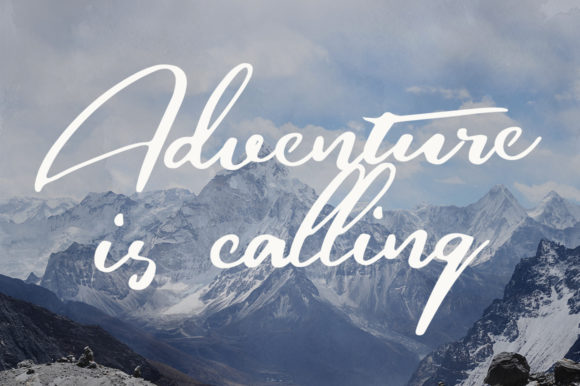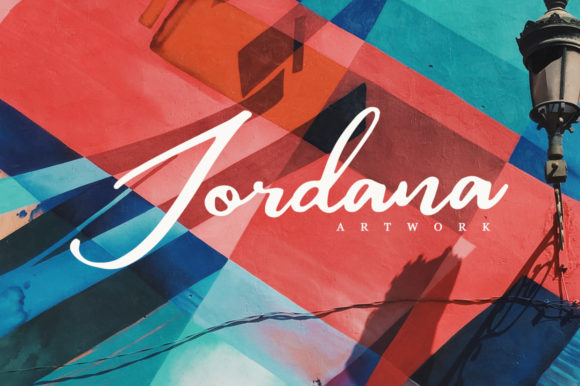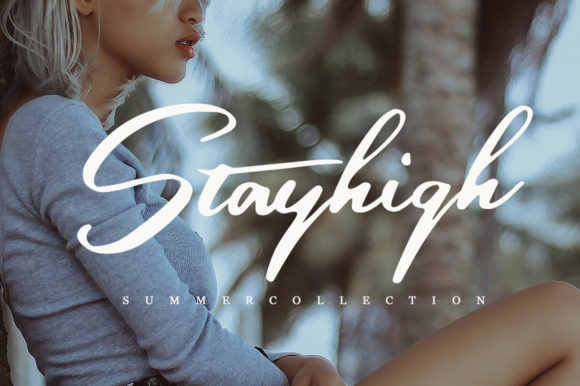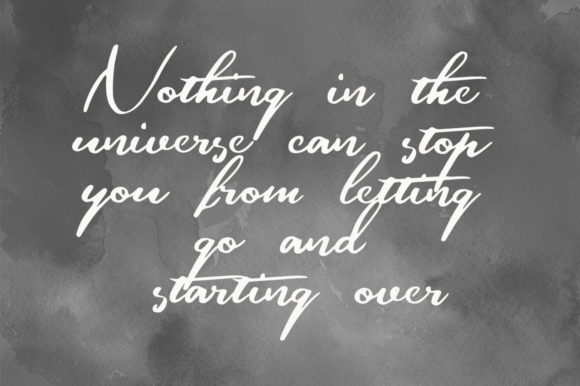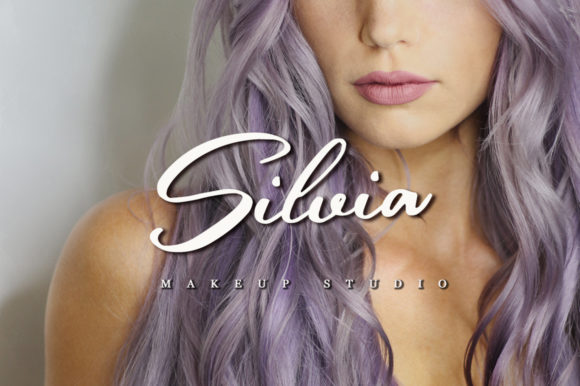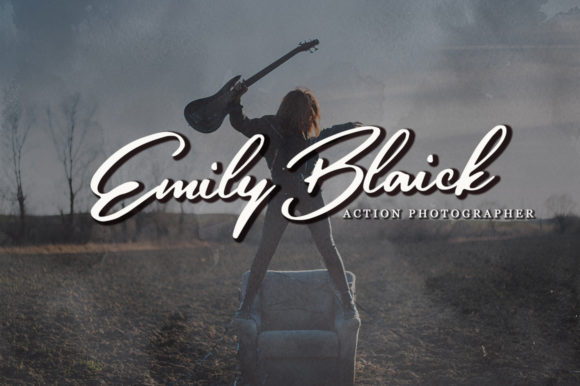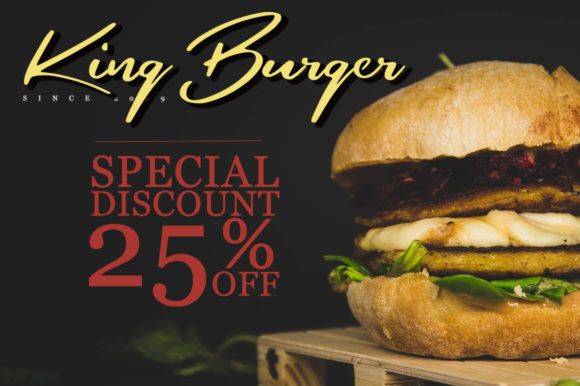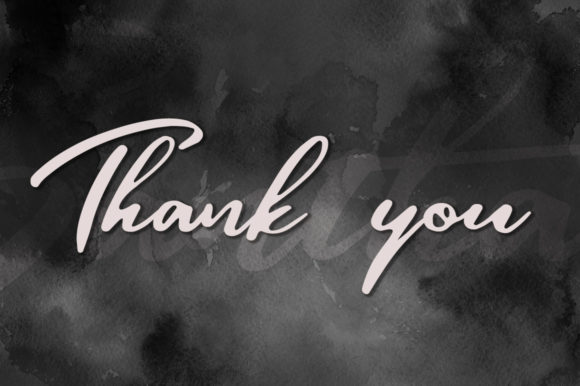
Santhana Font
About Santhana Font
Santhana is a delicate and lovely handwritten font that will add a touch of authenticity to any design project. Fall in love with its bold swashes.